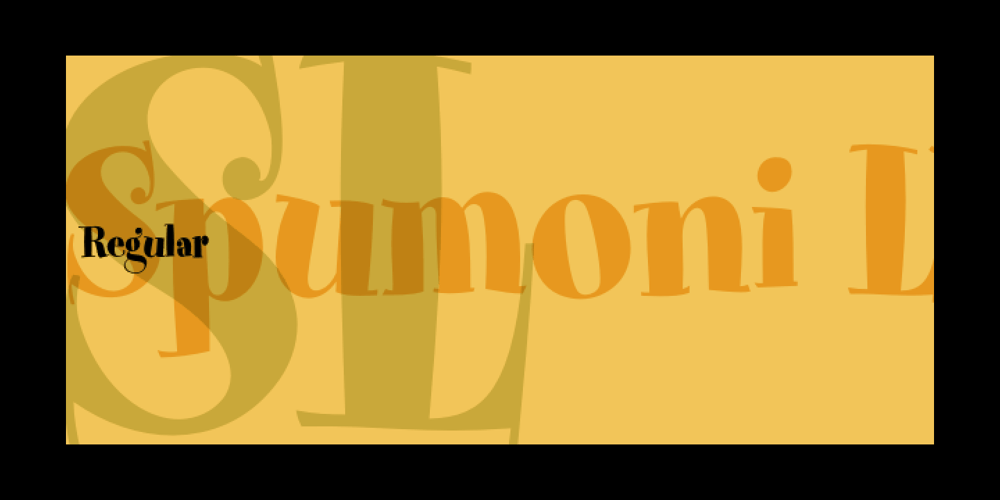
Spumoni LP Font Family was designed by Garrett Boge and published by LetterPerfect. Spumoni LP contains 1 styles and family package options. Spumoni plays freely off of the typeface Bodoni. Though commercial lettering is becoming a disappearing craft, Spumoni provides this hand-drawn quality in a digital medium. Its bouncy, playful letters infuse a sense of humor into headlines, titles and blurbs of text in need of a merry touch